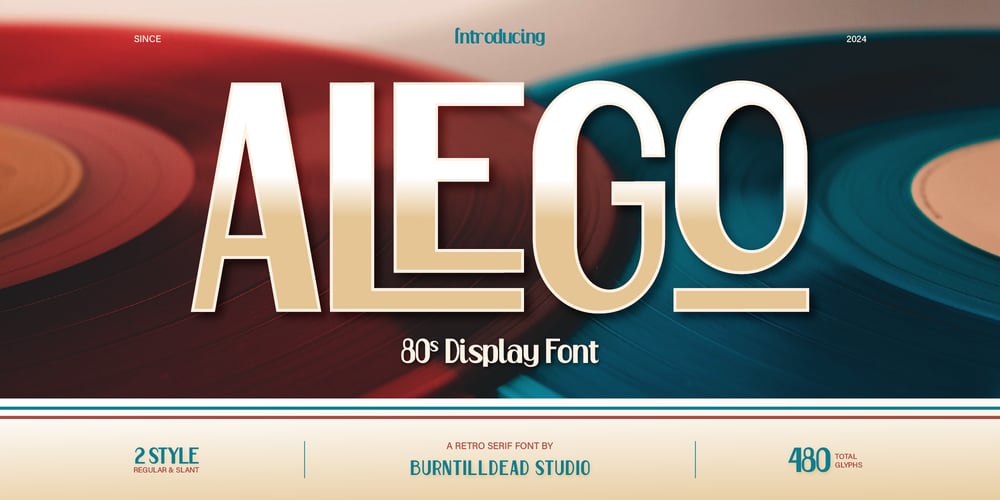
Alego Font Family was designed by Eric Kurniawan and published by Burntilldead. Alego contains 2 styles and family package options. Introducing Alego, our display retro font with delightful sans serif and for sure bring back the 80’s era. This font have characterized by bold, simple, minimalist and nostalgic elements. These fonts inspiration from various eras, such as diner signs, psychedelic poster, arcade games. They are perfect for creating eye-catching headlines, logos, posters, and any design that need a sense of nostalgia and timeless style. Features: A – Z set Number Punctuation Alternate Ligature Multilingual